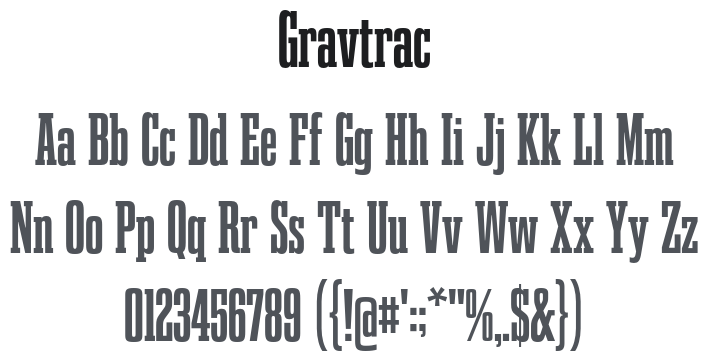
Gravtrac Font
About Gravtrac
Gravtrac is an ultra-condensed slab serif built for maximum impact in minimal space. Its compact letterforms, squared serifs, and tight spacing deliver strength and clarity under compression, from Thin to Heavy across four widths; Condensed, Compressed, Crammed, and Crushed. Tuned italics and short ascenders maintain rhythm where horizontal room is scarce, making it ideal for headlines, packaging, spines, and transit graphics. With 58 styles and support for Latin, Greek, and Cyrillic scripts, Gravtrac gives designers precise control over density and tone. When every millimeter counts, it keeps messages bold and legible.